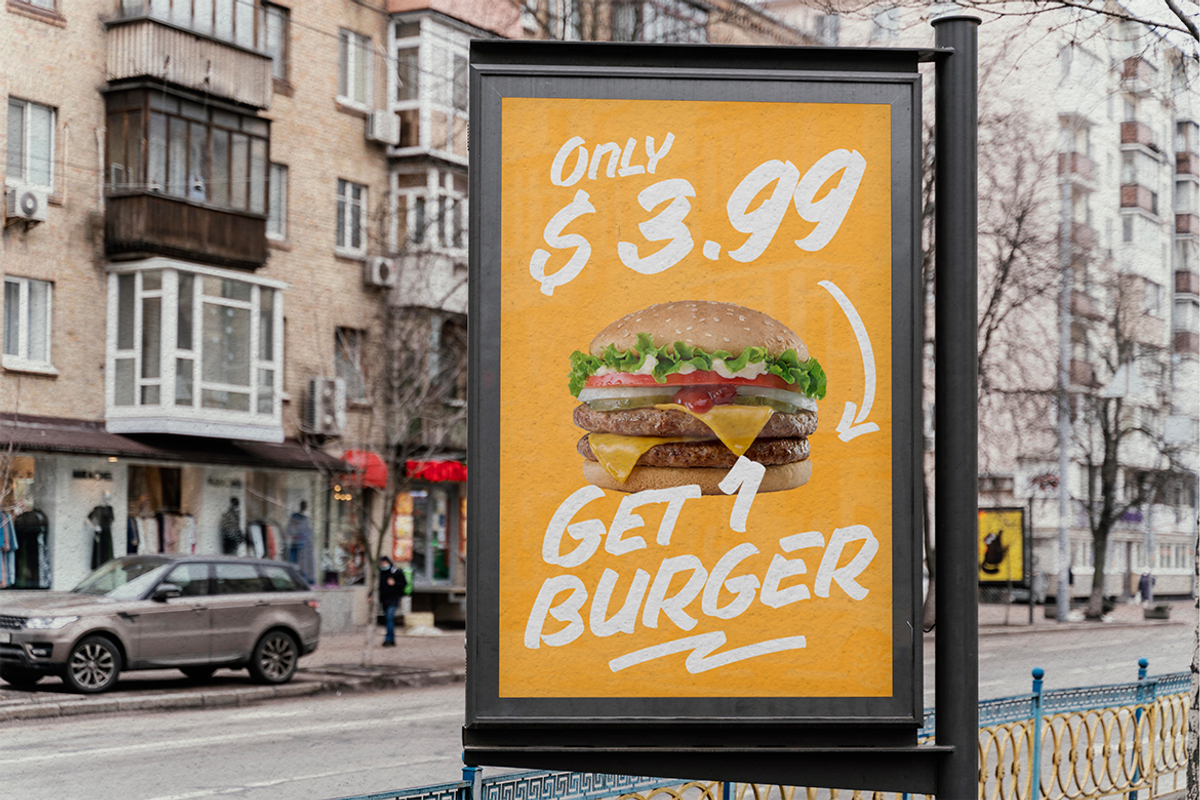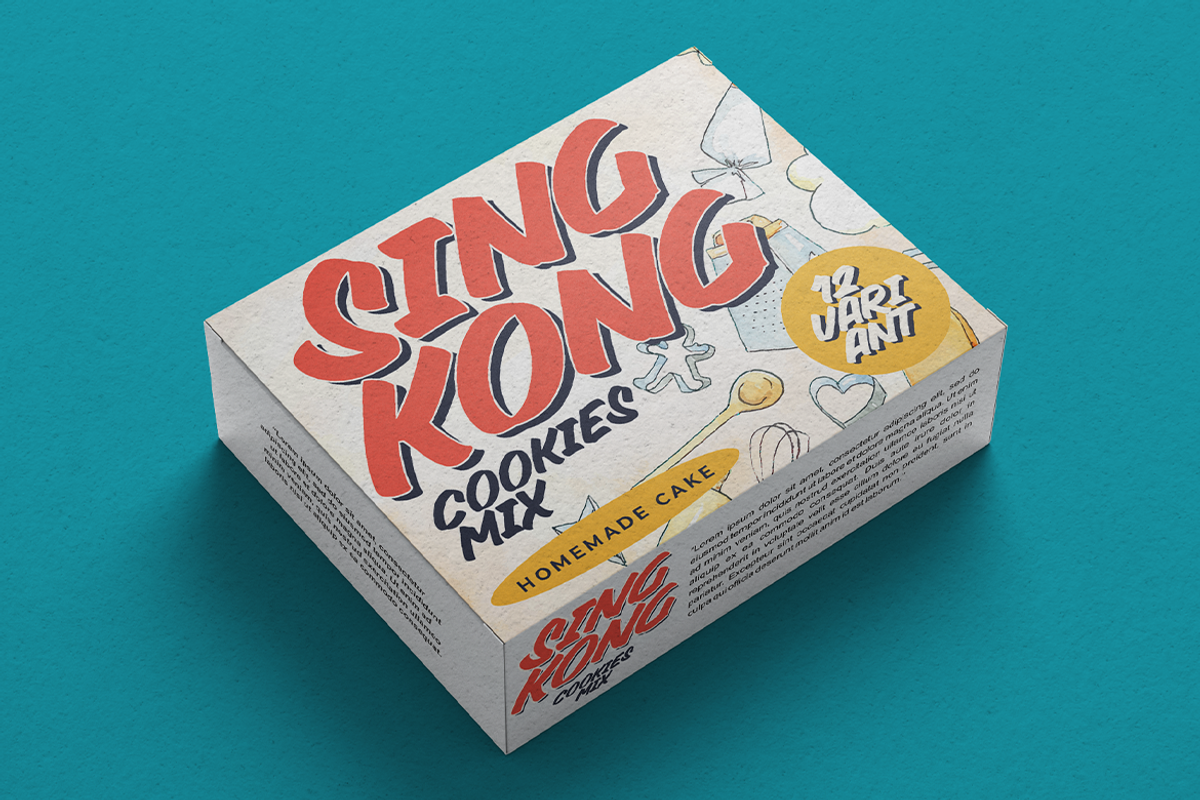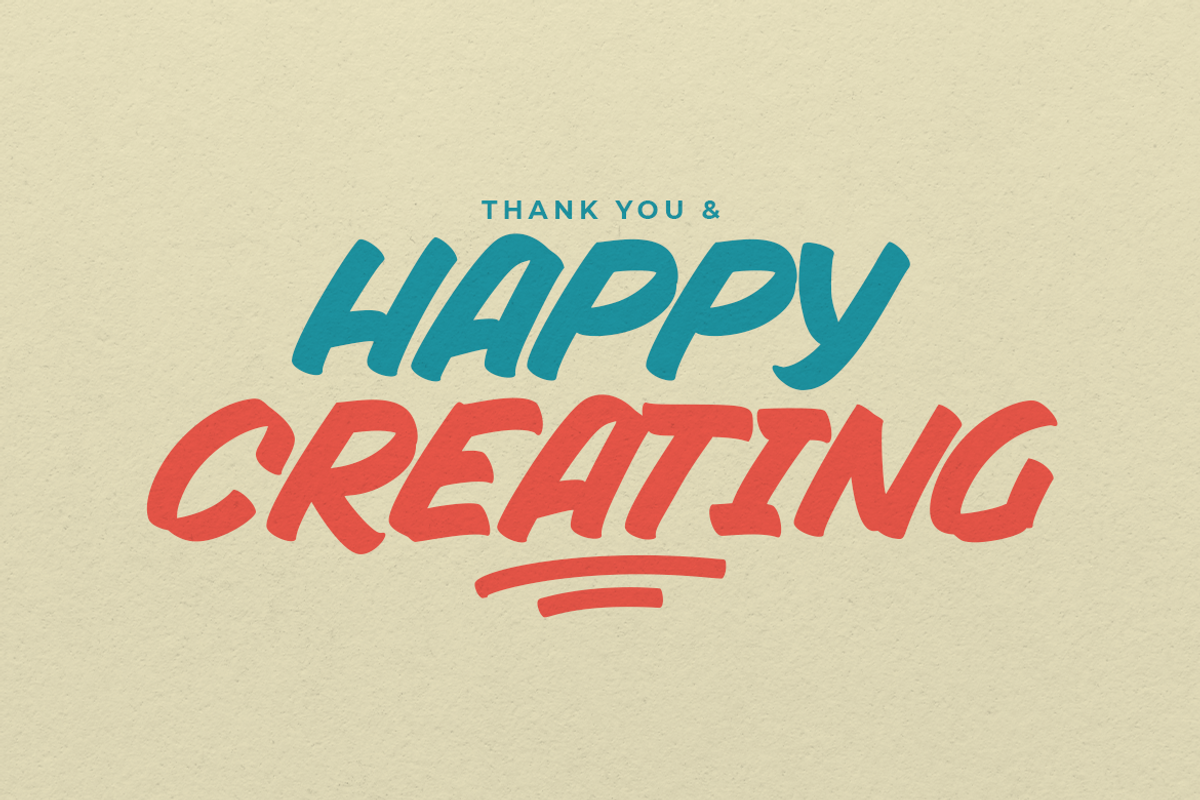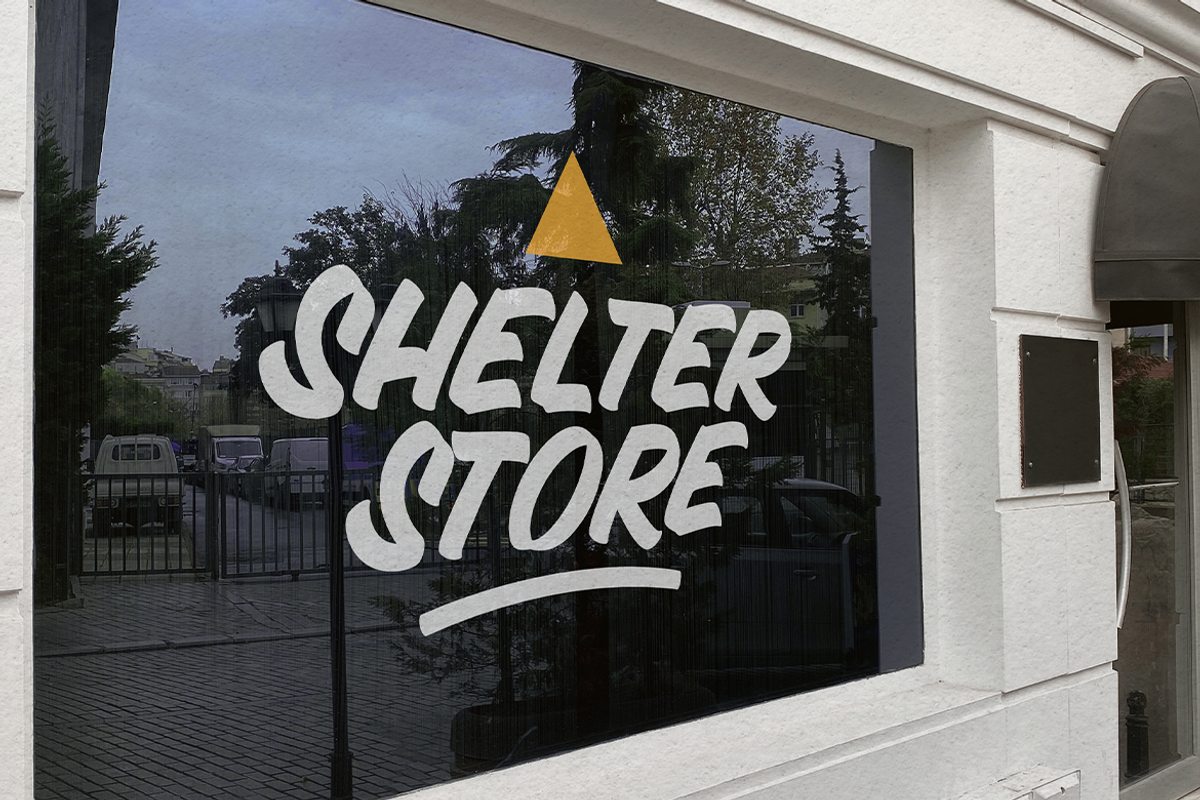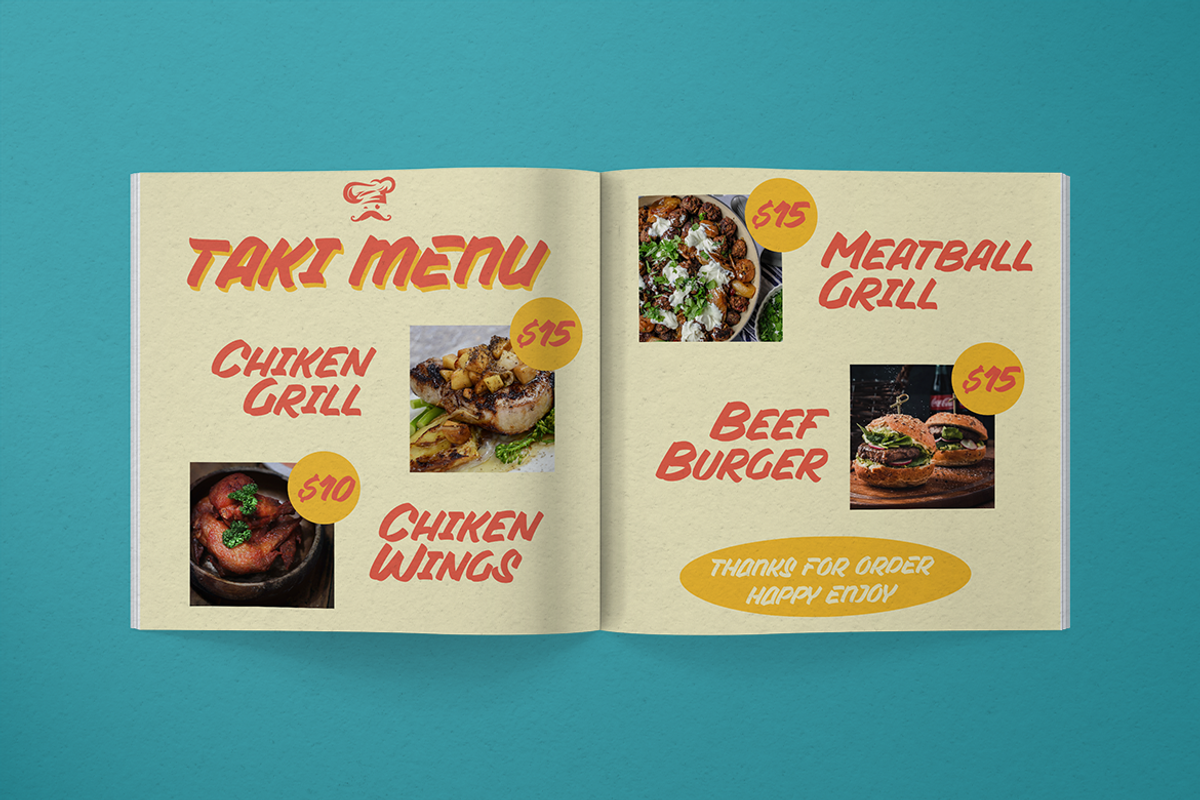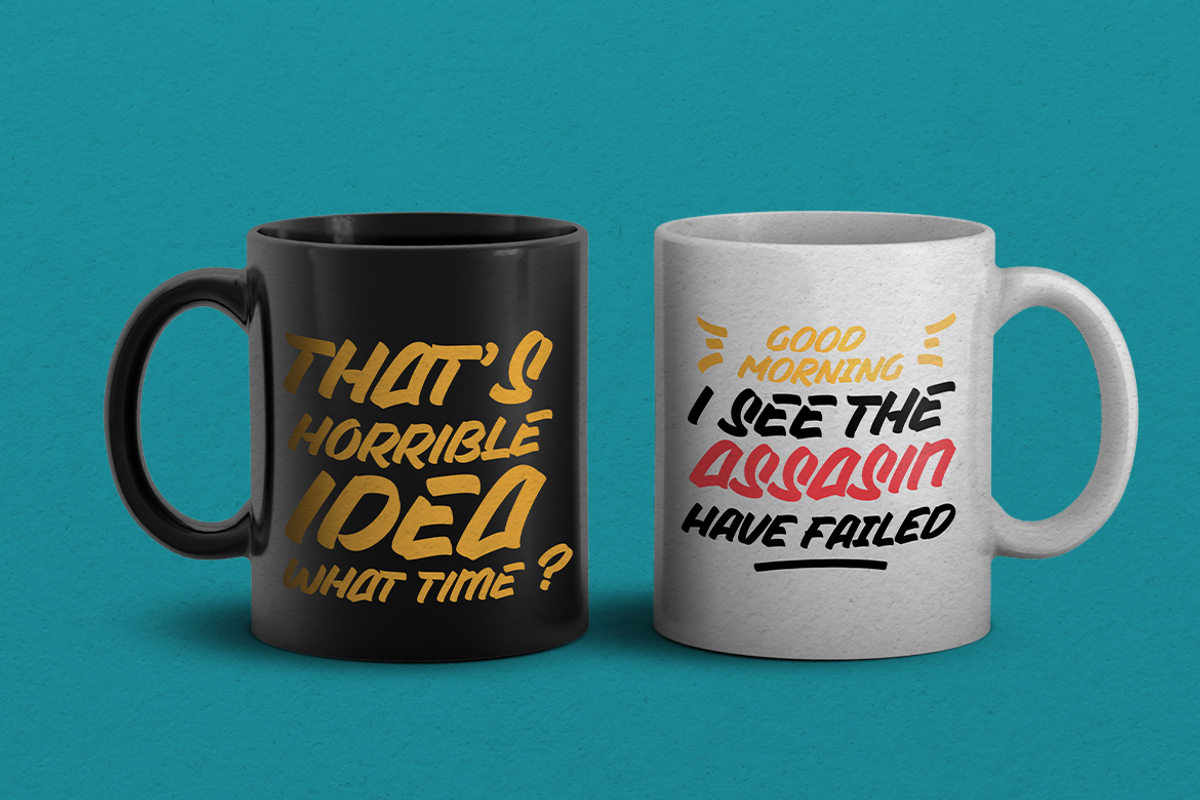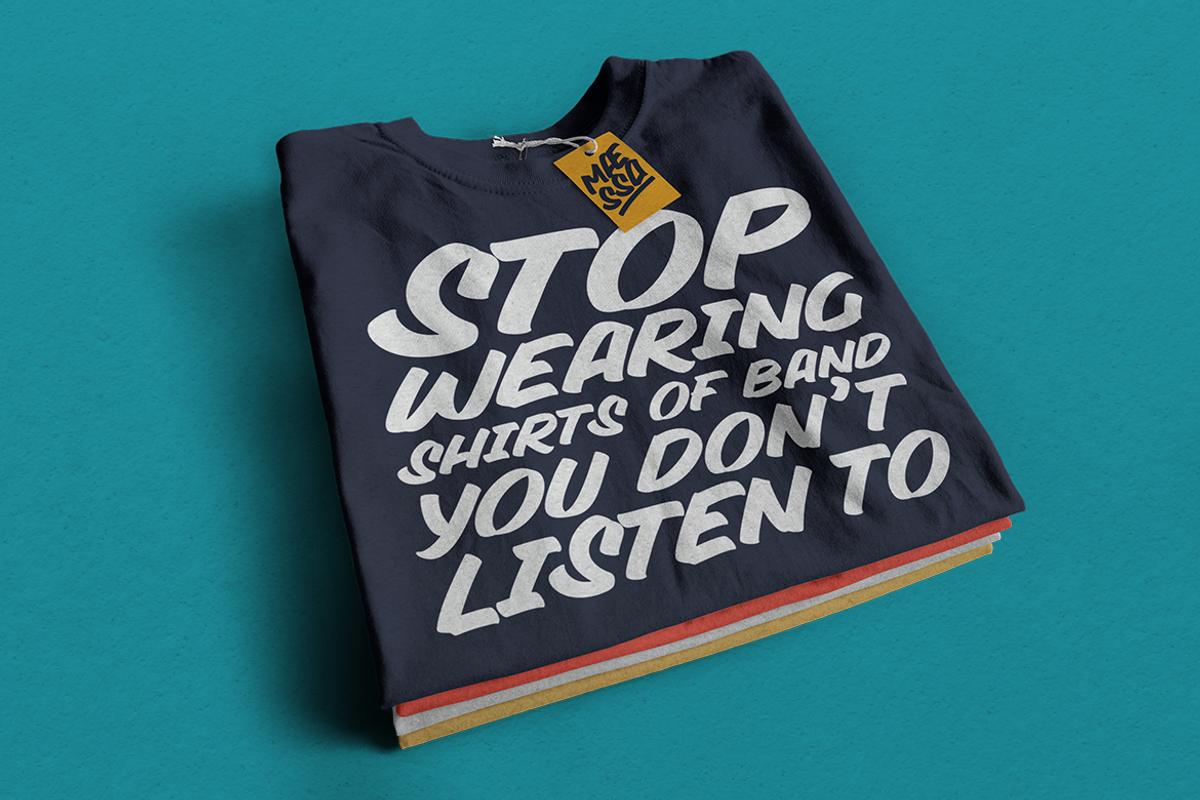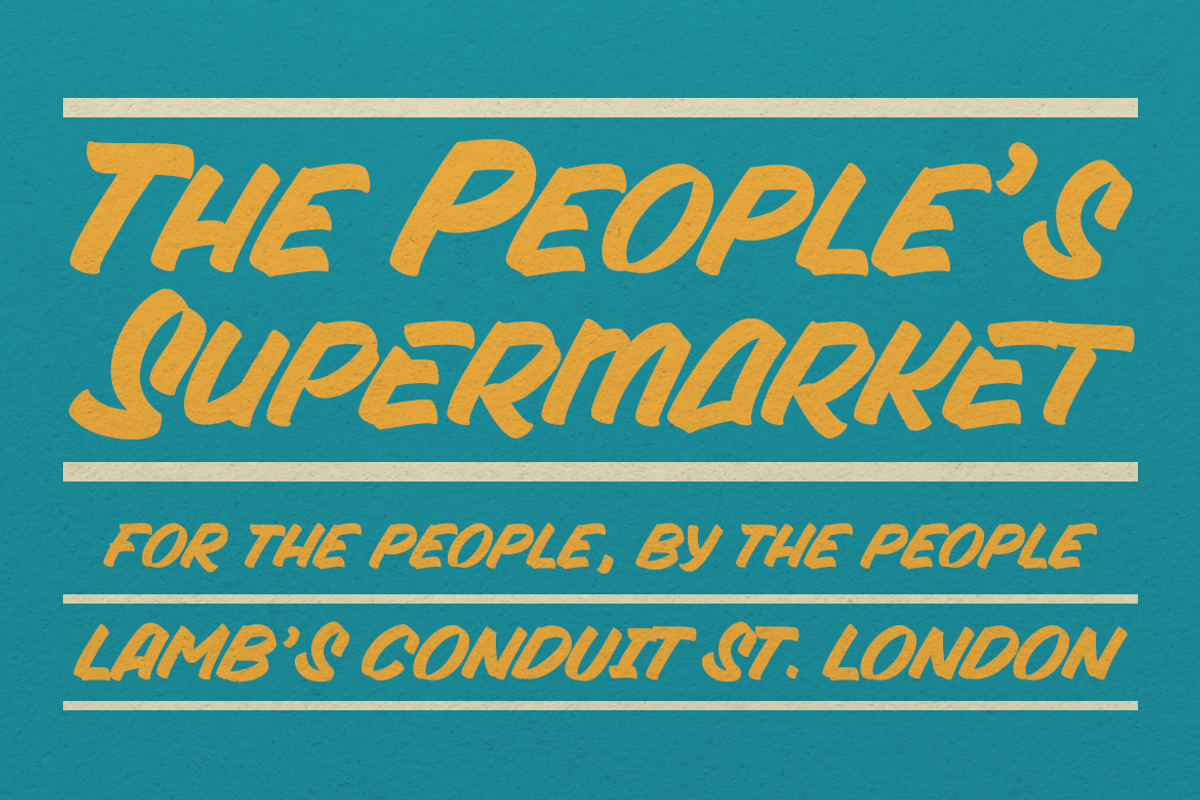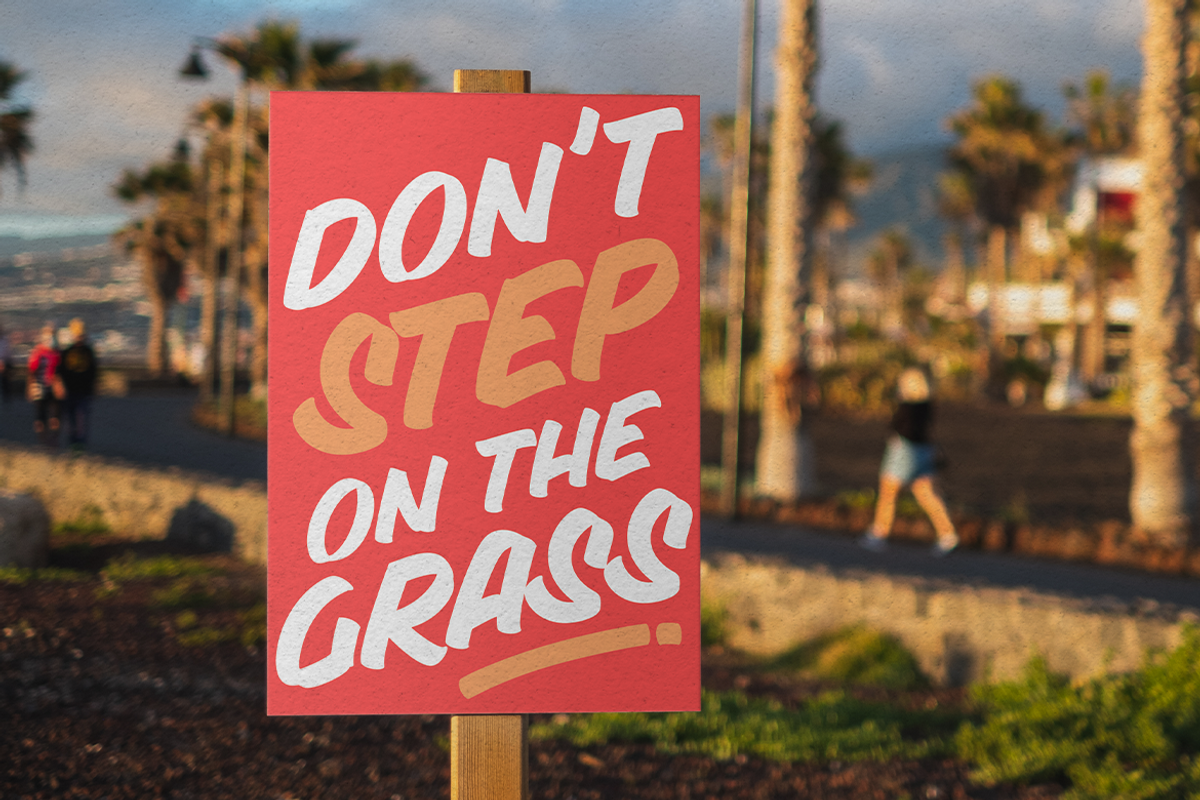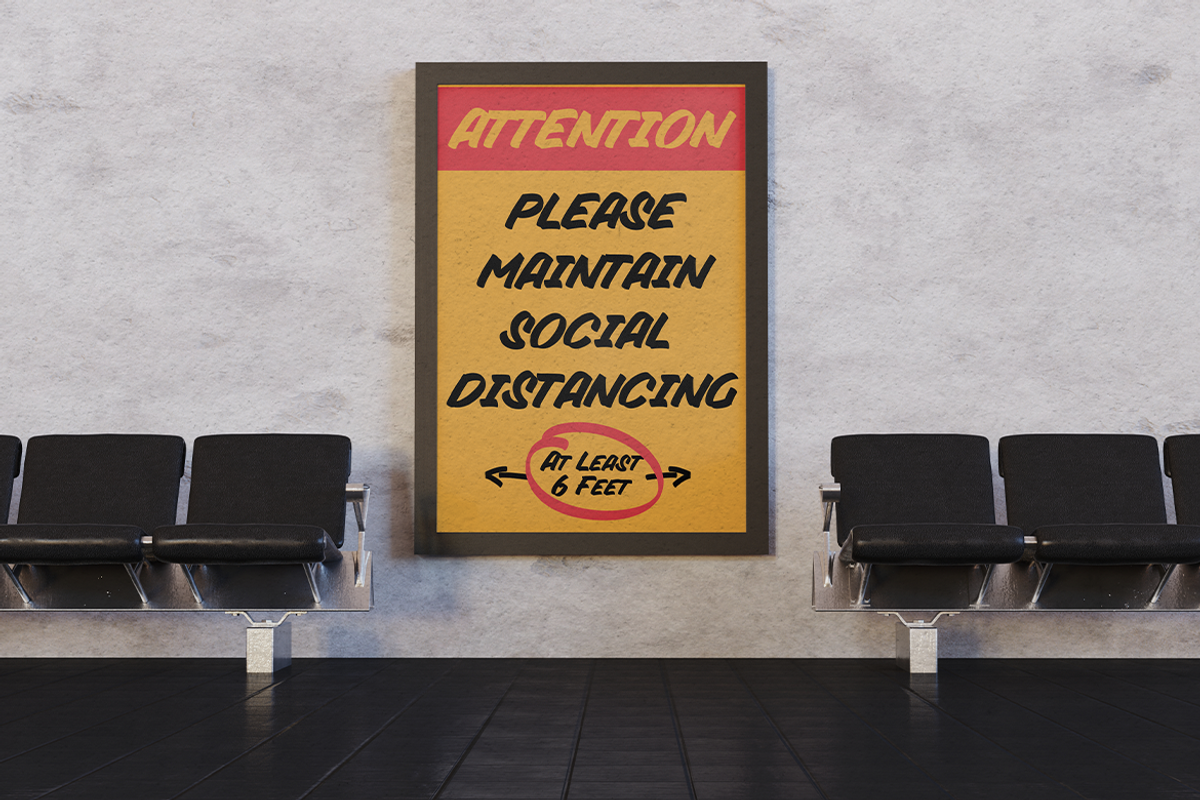
Silver Sale • A Sign Painting Font
Presenting Silver Sale! A SIgn Painting Font with a set of alternate and 28 swashes. This font is made with the perfect combining of each character. You can type by Mix & Match with alternate version to get a unique combining. It looks original and can be used for all your project needs. Each glyph has its own uniqueness and when meeting with others will provide dynamic and pleasing proximity. This font can be used at any time and on any project. You can see in the presentation picture above, Silver Sale looks casual and clean on design projects.
So, Silver Sale can't wait to give its touch to all your design projects such as sign painting, quotes, poster design, personal branding, promotional materials, website, logotype, product packaging, etc.
1. Silver Sale Basic • The first version comes with uppercase, lowercase, numeral, punctuation, symbols, and Standard Latin Multilingual Support (Afrikaans, Albanian, Catalan, Danish, Dutch, English, French, German, Icelandic, Indonesian, Italian, Malay, Norwegian, Portuguese, Spanisch, Swedish, Zulu, and More). You can also access alternate and swash by Opentype Features or typing c_1 until c_28 to feature swash.
2. Silver Sale Alternate • The second version comes with uppercase, lowercase, numeral, punctuation, symbols, and Standard Latin Multilingual Support (Afrikaans, Albanian, Catalan, Danish, Dutch, English, French, German, Icelandic, Indonesian, Italian, Malay, Norwegian, Portuguese, Spanisch, Swedish, Zulu, and More). You can also access swash by Opentype Features or typing c_1 until c_28 to feature swash.
3. Silver Sale Swash • The first version comes with 28 swashes. Simply access just type all alphabet, period (.) and comma (,).